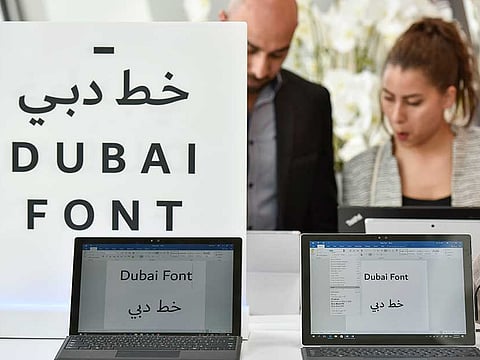
Directs Dubai government entities to adopt it in their correspondence
Crown Prince of Dubai and Chairman of the Executive Council of Dubai Shaikh Hamdan Bin Mohammad Bin Rashid Al Maktoum has launched the Dubai Font — Microsoft’s first font to be created by a city and named after it — in line with the UAE’s vision to become a regional and global leader in innovation.
On this occasion, Shaikh Hamdan officially directed government institutions in the Emirate of Dubai to adopt the font in government correspondences, saying: “The launch of the Dubai Font to the world is a very important step for us as part of our continuous efforts to be ranked first in the digital world.
"We are confident that this new font and its unique specifications will prove popular among other fonts used online and in smart technologies across the world. Therefore, we urge all government entities to use the Dubai Font in their official correspondence, which is considered as a positive shift that will boost the emirate’s competitiveness in smart technology. This should be a commitment from the Dubai Government to guarantee the dissemination and success of this initiative on a local and global level.”
Moreover, Shaikh Hamdan was introduced to the minutiae of the “Dubai Font”, which sets it apart from many other fonts available throughout the world. He lauded its meticulous design that combines the authenticity of the past and the aspirations of the future, crossing all borders and barriers to give every person, wherever they may be, the means to express themselves. Shaikh Hamdan described the font as the new tool for a more tolerant and happy world.
He added: “I have personally overseen all the stages of the development of this font, from the first design sketches to the execution phase. I congratulate the project team and everyone who contributed to the success of this unique initiative.”
On the same note, Secretary General of the Executive Council of Dubai Abdullah Abdul Rahman Al Shaibani said: “Based on the directives of Vice President and Prime Minister of the UAE and Ruler of Dubai His Highness Shaikh Mohammad Bin Rashid Al Maktoum, who has always urged us to communicate and to open new channels with others to exchange ideas and experiences, in addition to the continuous support of Crown Prince of Dubai and Chairman of the Executive Council of Dubai Shaikh Hamdan Bin Mohammad Bin Rashid Al Maktoum, and the valuable trust bestowed upon us, we are gathered here today to witness a new contribution from Dubai to serve the region and the world. The Dubai Font — the emirate’s new and innovative mark in the digital world — builds a knowledge bridge linking the East to the West.”
He added: “The ‘Dubai Font’ sets itself apart from other fonts because it was designed based on the main pillars that have turned Dubai into a remarkable symbol of success and tolerance. It was simultaneously designed in both Arabic and English, which was later extended to include 21 other languages. It reflects the commitment of The General Secretariat of the Executive Council of Dubai in executing the directives of our wise leadership, as well as achieving its strategy to encourage the use of technology in reaffirming Dubai’s global stature, and asserting its influential role in serving governments and the community across all levels.
“We continuously explored all possibilities and high potentials that technology provides us and we have used them in new and effective ways.
“We commend the efforts of the project team that has materialised the directives of our wise leadership and worked to achieve this success using the latest technologies. The Dubai Font reflects many of the values that characterise the personality of the Emirate of Dubai, whose vision revolves around giving, happiness, smartness, boldness, living in harmony, respecting one another and combining the authenticity of the past, the modernity of the present and the aspirations of the future.”
Developed as per the highest and most cutting-edge technological standards, the font is the first font in Microsoft applications and solutions to be developed by a city and to carry its name. The Dubai Font is not only a digital typeface used for writing but also a form of communication allowing people around the world to express their personalities and feelings in an ever-evolving digital world.
Assistant Secretary General for the Executive Council and General Secretariat Affairs Sector of Dubai, and Project Director of Dubai Font, Ahmad Al Mahri said: “The Dubai Font reflects the commitment of the General Secretariat of the Executive Council to employ the best technologies and tools in an innovative and effective way. It integrates the traditions of the UAE and its ancient and honorable past with its developed and innovative future, as per the directives of our wise leadership. Our team has executed the orders of the Crown Prince and has ensured that the Dubai Font adopts the latest international practices in the world of typefaces.”
Al Mahri added: “This initiative will surely mark Dubai’s position in this fast-paced world of digital typography; therefore, it was necessary for us to embrace these technologies and present them to the people in a way that gives them pride and happiness, allowing them to express themselves with the people around them.
“We present the Dubai Font to the world today, to restate the essential role played by the United Arab Emirates in promoting the values of giving and tolerance not only within the country but also around the world. The font also supports the technology sector in general by offering a high-quality digital font with unique specifications in different countries of the world without any costs. The font carries special characteristics that facilitate reading and supports printing and display on electronic screens. Dubai Font happens to be the most exemplary font to use in designing promotional ads to be used in larger sizes. It is important to note that the high technical quality of the font fills an important need for high-quality Arabic fonts as part of the Office 365 program by Microsoft.”
On the other hand, the design of the font captures the unique nature of the Emirate of Dubai. The Dubai Font mirrors the city’s qualities and promotes its global standing. The font includes 23 languages.